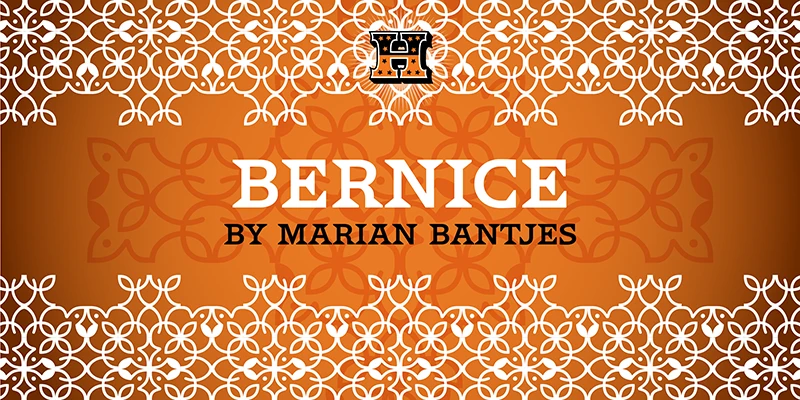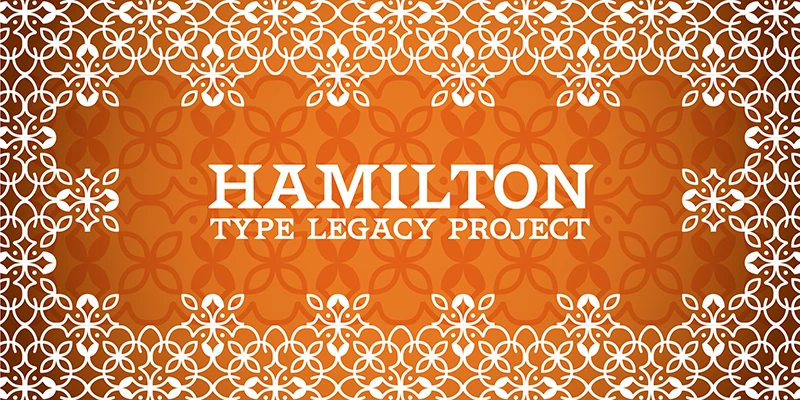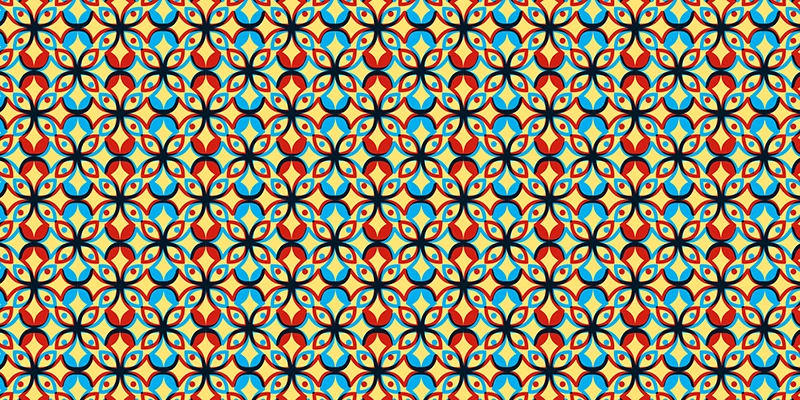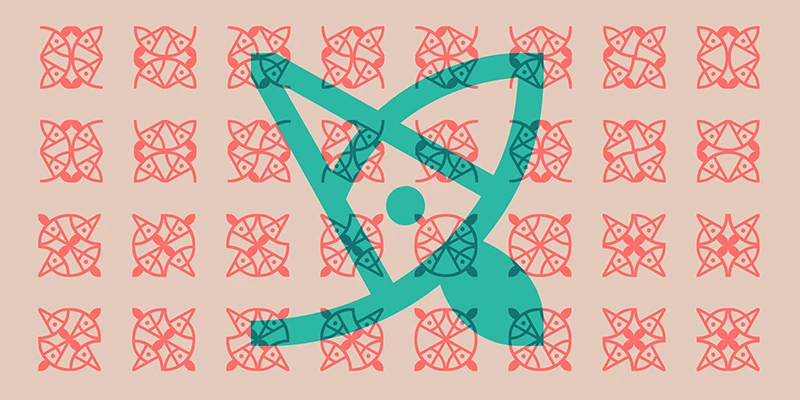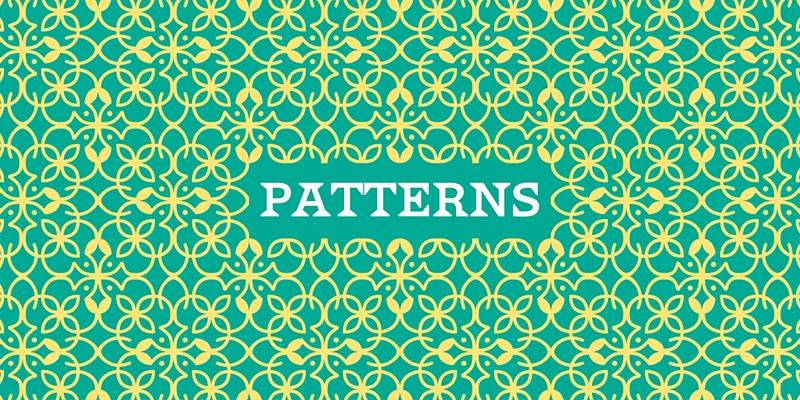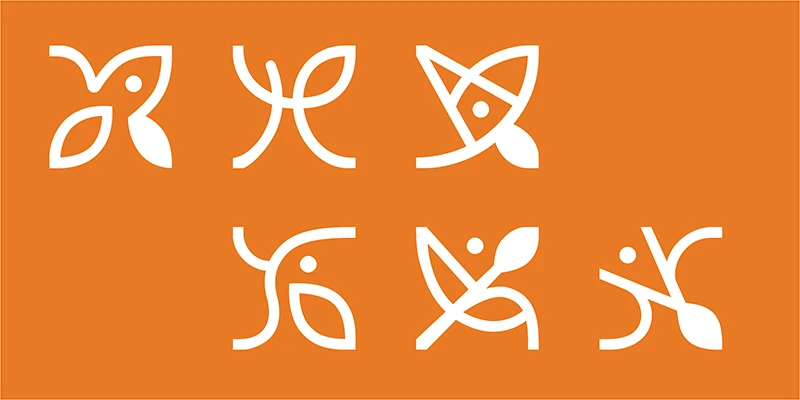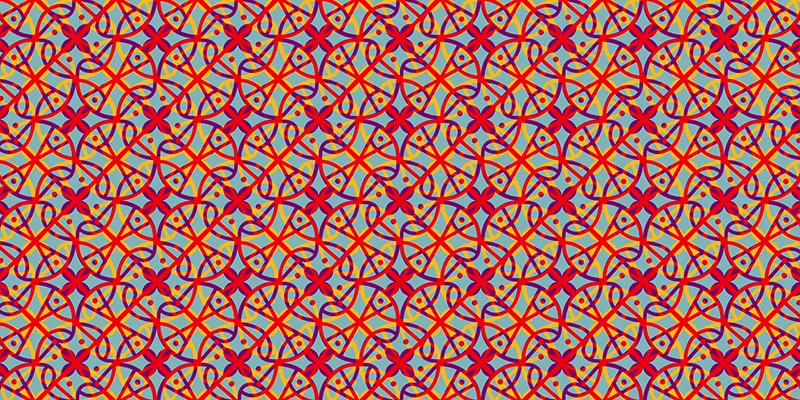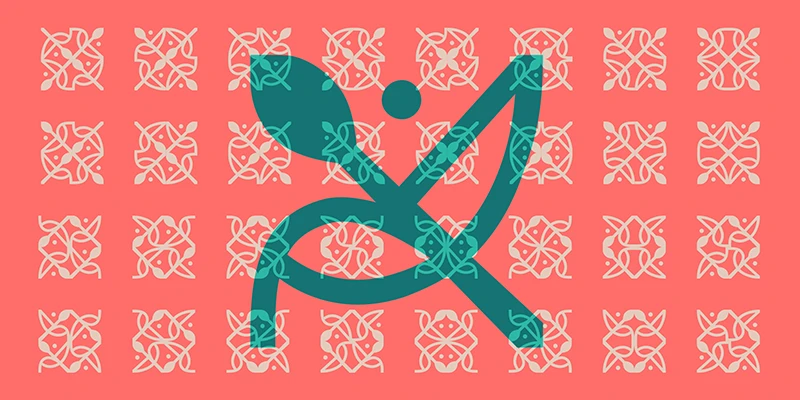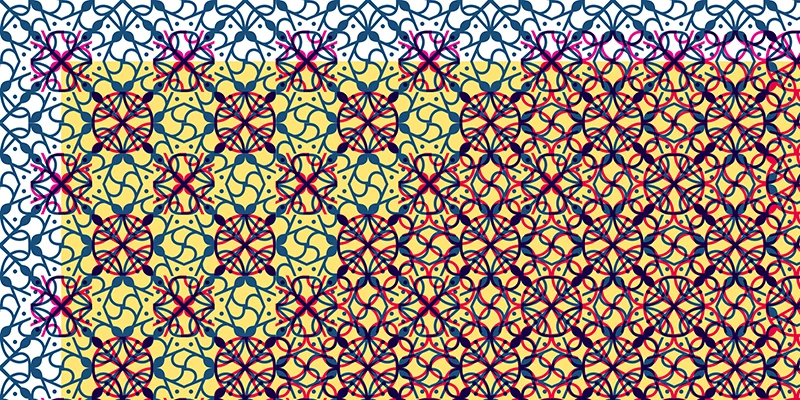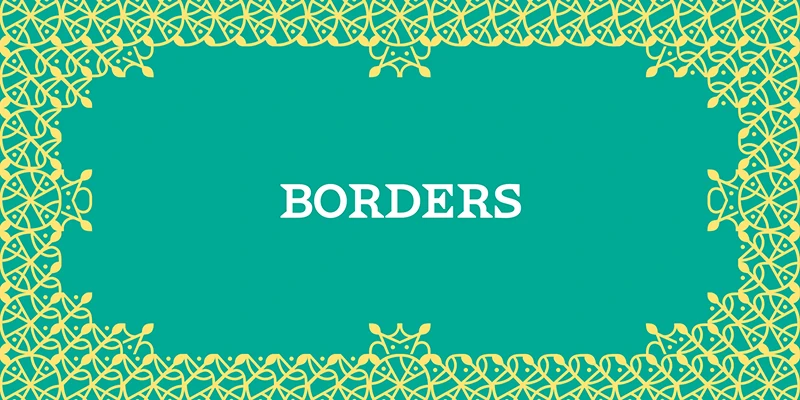
HWT Bernice is a system of ornaments designed by graphic artist Marian Bantjes. Aptly named for Bernice Schwahert, the first female type trimmer at Hamilton Manufacturing, known for her precision. The individual elements are asymmetrical, so symmetry, if that’s what you’re looking for, is found in rotation. Cover art, book endpapers, and fabrics are only a few possible applications. Equally enticing if you go big with wallpaper patterns and stenciled floors.
Designed by Marian Bantjes